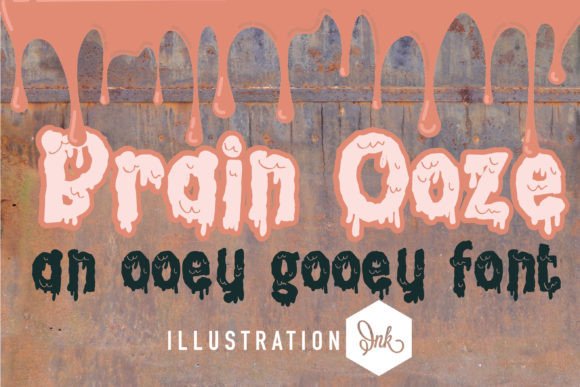
The Spooky Charm of Brain Ooze Font: A Designer’s Delight
A Spooktacular Typeface
Brain Ooze font is a delightfully playful typeface designed to bring spooktacular fun to your Halloween projects. With its whimsical and eerie letterforms, this font captures the essence of the season, making it perfect for party invitations, posters, and spooky decorations. Whether you’re a designer, crafter, or creative hobbyist, Brain Ooze font is sure to add a touch of Halloween magic to your projects! π
- β¨ Unique and quirky letterforms that scream Halloween fun
- β Highly legible, even in smaller sizes
- π¨ Versatile and adaptable to various design projects
- π·οΈ Perfect for creating spooky and playful content
- πΈοΈ Some characters may require manual kerning for optimal results
The Story Behind Brain Ooze Font
Brain Ooze font was designed by a team of creatives who wanted to capture the essence of Halloween in a unique and playful way. Inspired by classic horror movies, spooky decorations, and creepy crawlies, they crafted a font that’s both eerie and whimsical. The result is a typeface that’s perfect for adding a touch of Halloween magic to your projects. π
Q: What type of projects is Brain Ooze font best suited for?
A: Brain Ooze font is perfect for Halloween-themed projects, such as party invitations, posters, and spooky decorations.
Q: Can I customize Brain Ooze font with OpenType features?
A: Yes, Brain Ooze font supports OpenType features, such as ligatures and stylistic alternates, which can be used to add more personality to your design.